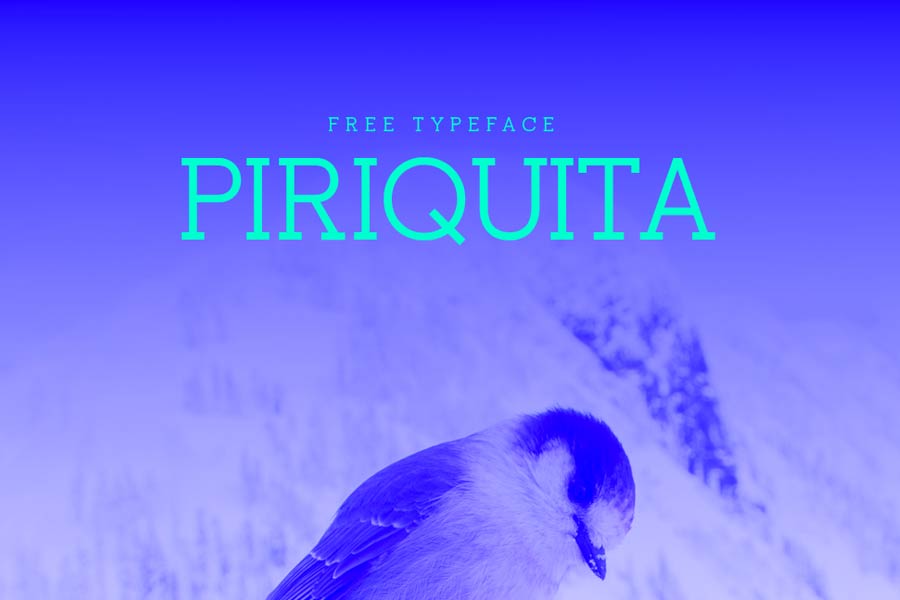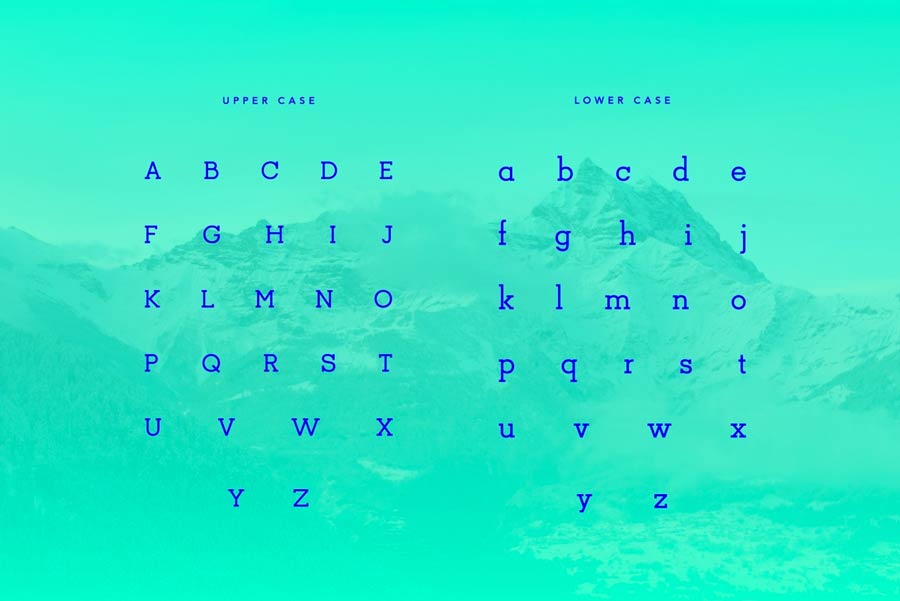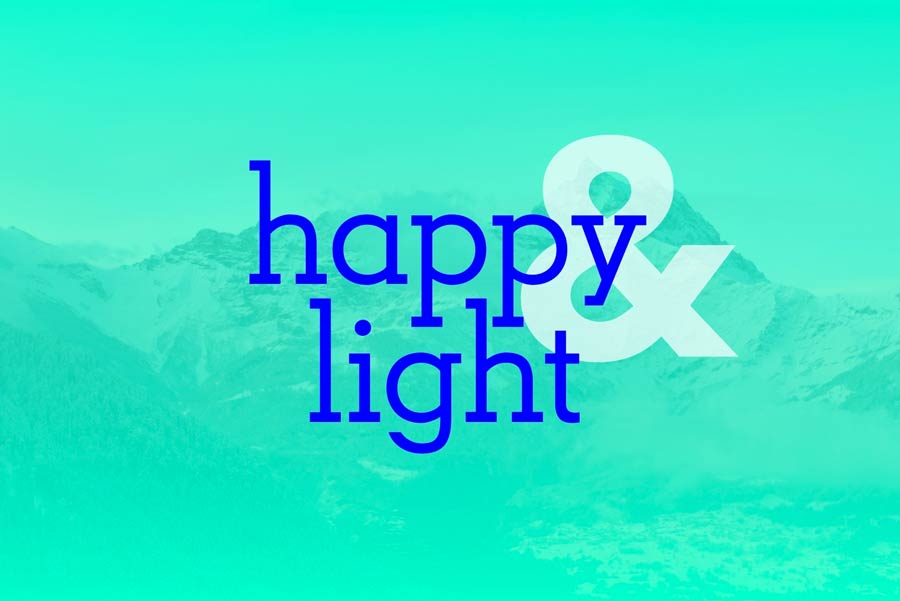
Piriquita is a free slab serif font that comes with distinctive geometrical feature. It reminded me of a popular slab serif font Rockwell, but Piriquita is equally unique on its own. This font is suitable for many design applications including headings, logos, pull-quotes, signages, labels and more. Piriquita font definitely complements well with geometrical sans-serif fonts of your choice.
- Designer: Ana Moreno
- Category: Slab Serif